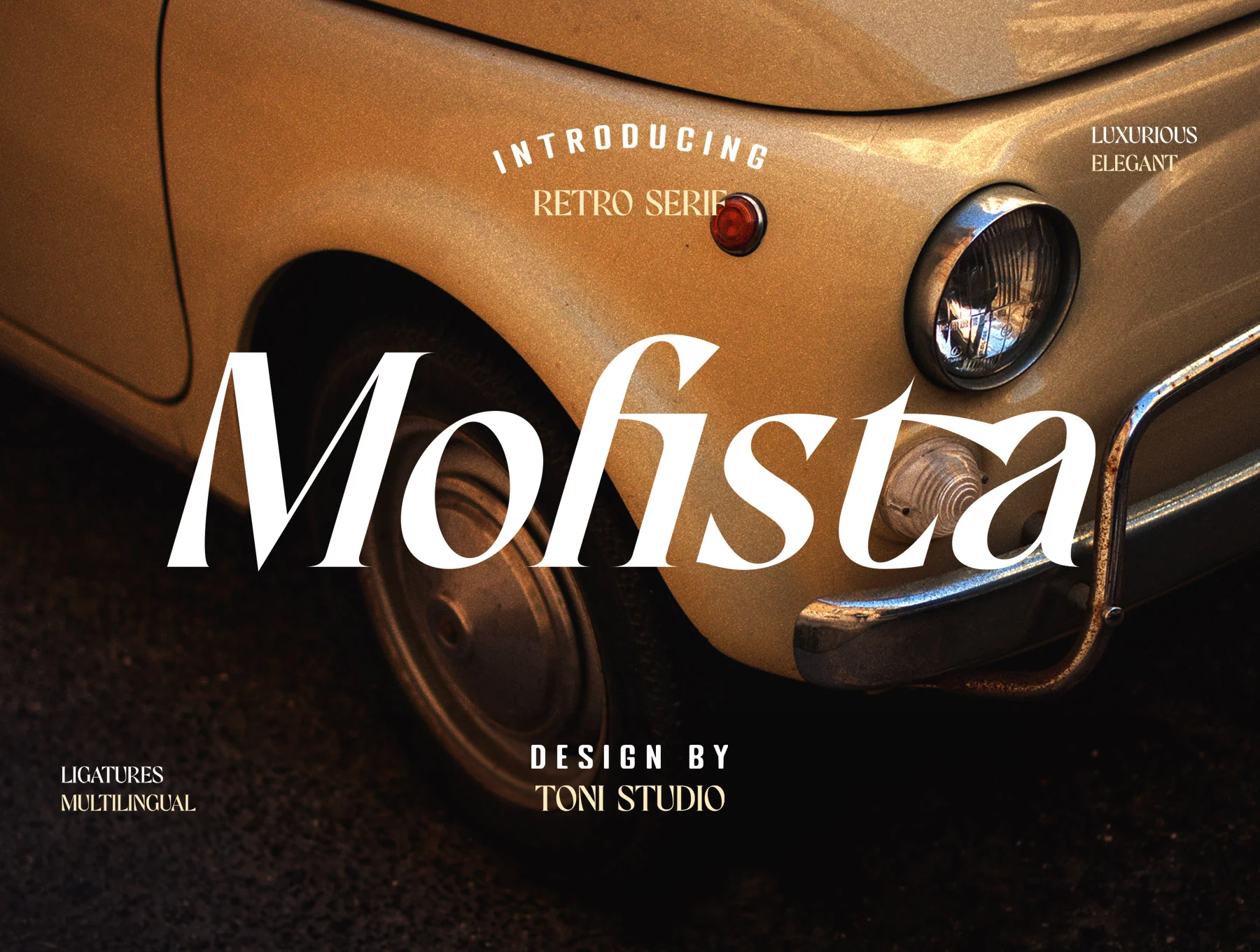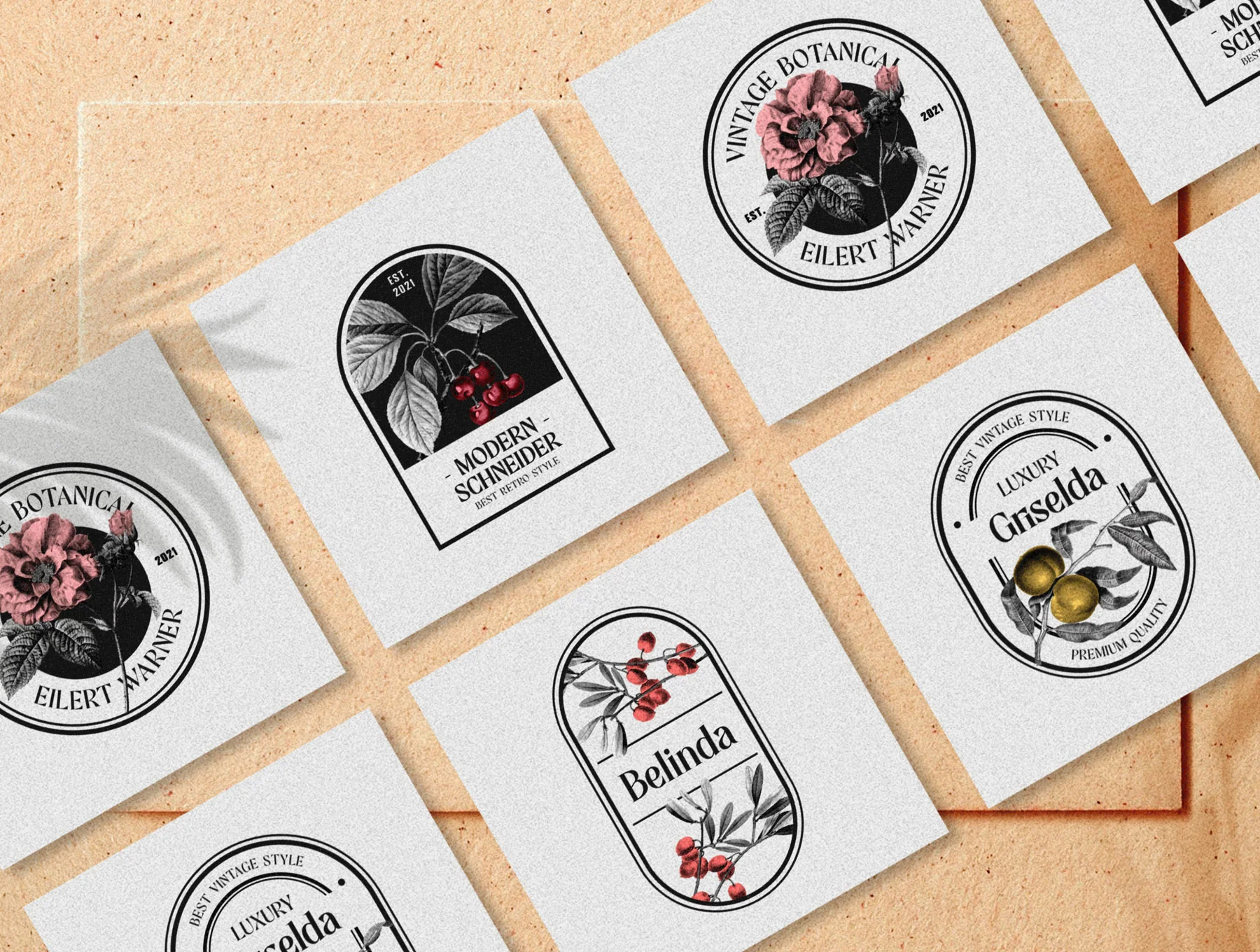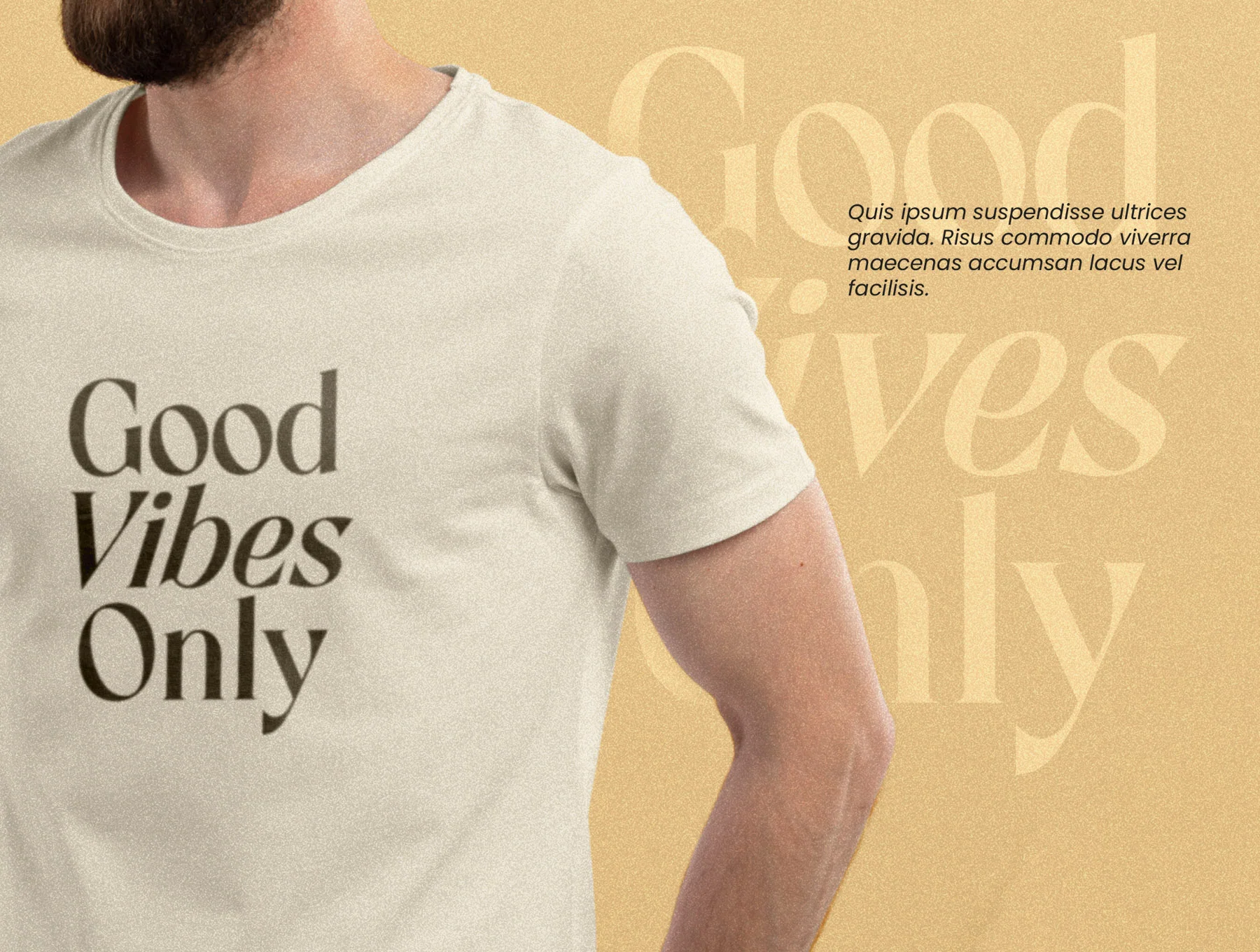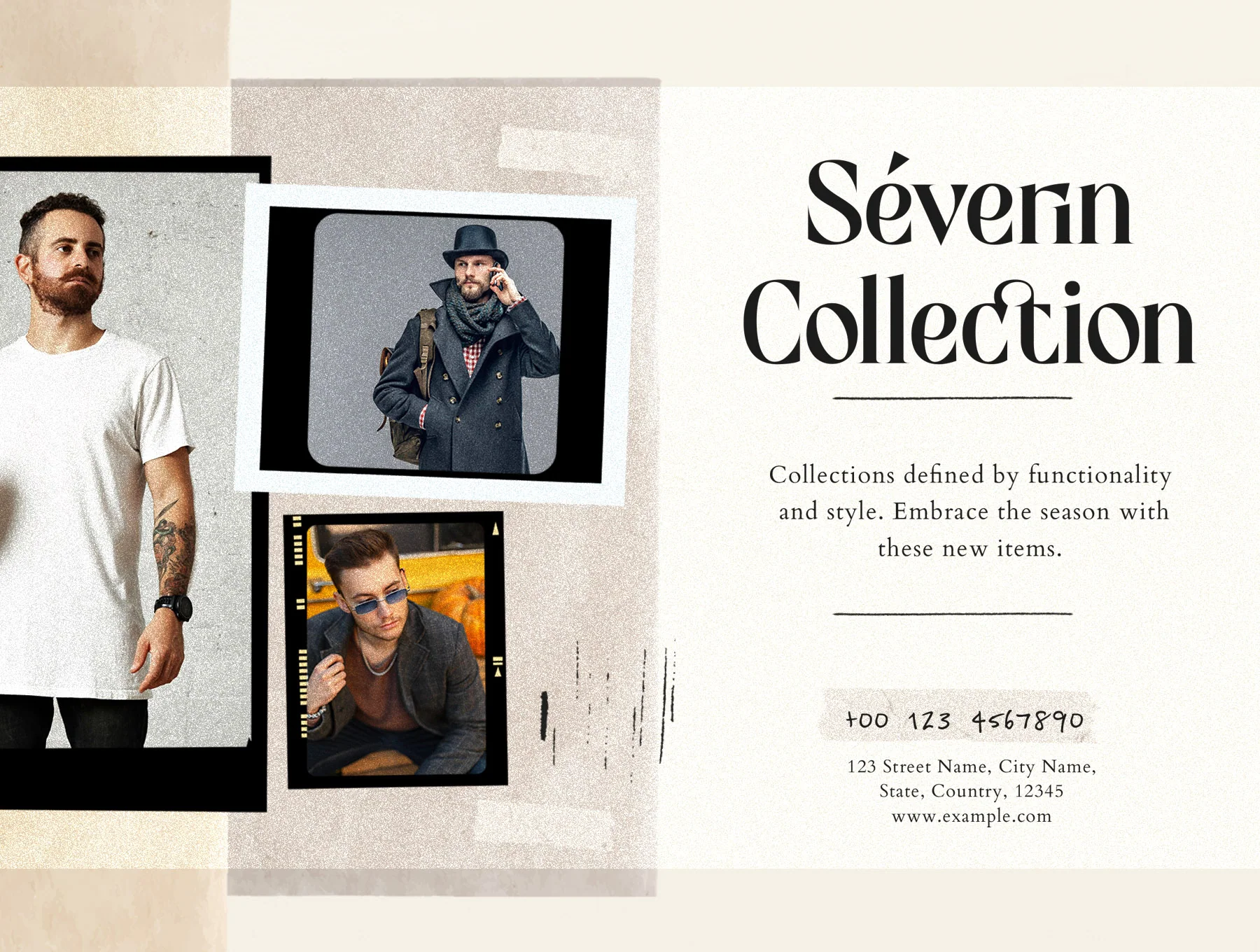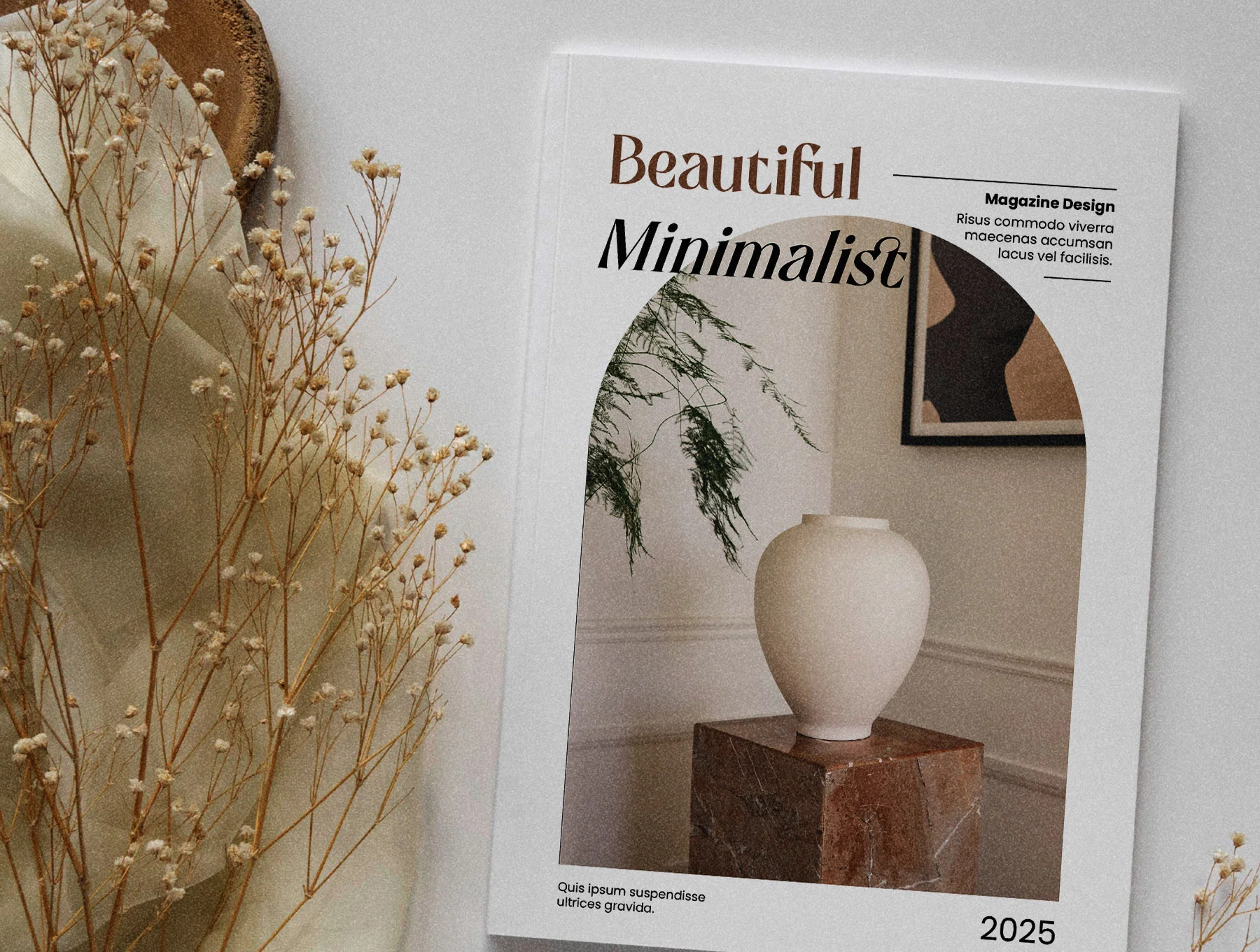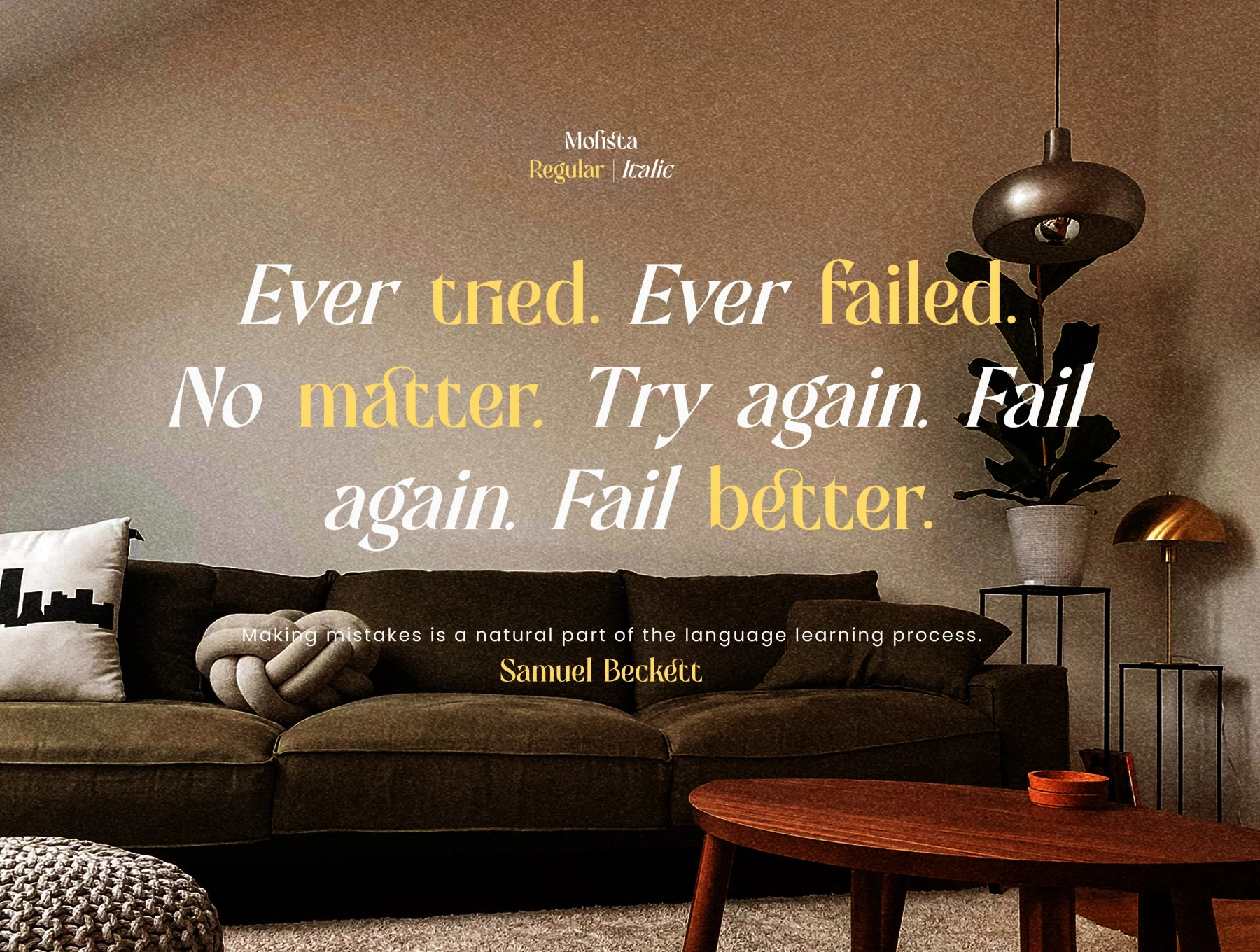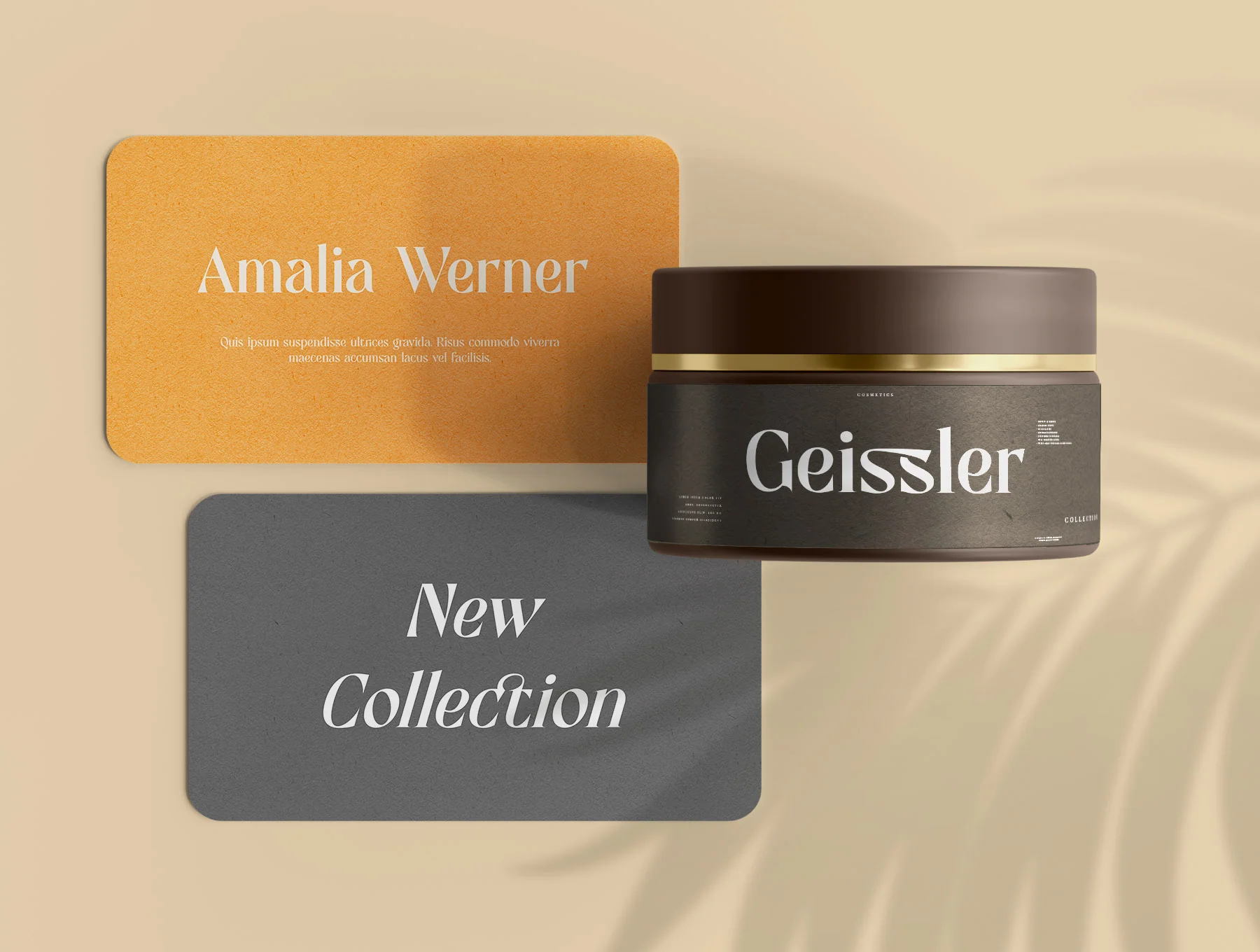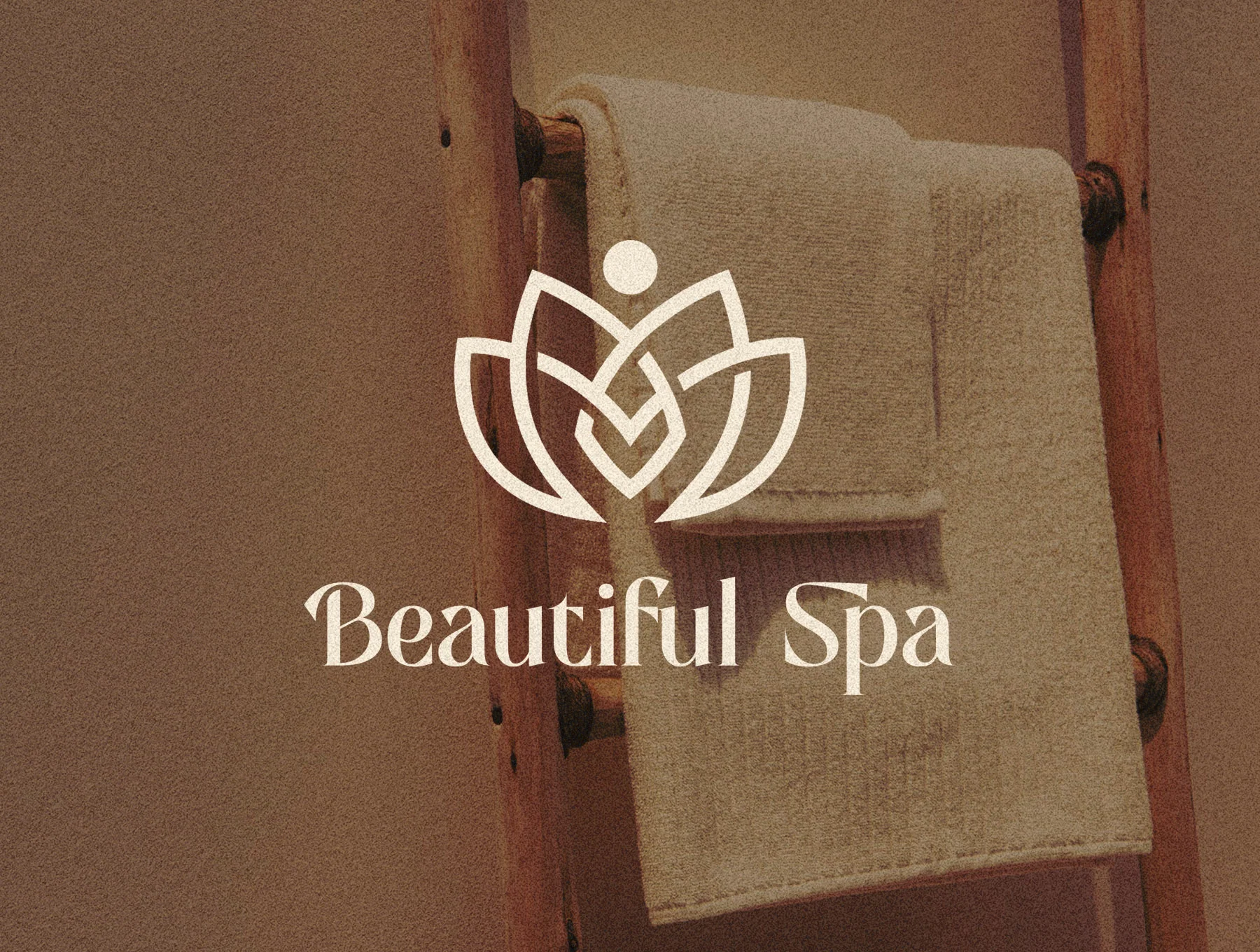
Mofista-Modern Serif Typeface
Contemporary Serif Font
standard style
slanted style
joined glyphs
Meet Mofista, a fresh retro serif inspired by expressive old-style typography. With regular and italic styles, alternates, warm rounded serifs, uppercase/lowercase, numbers, punctuation, and multilingual support, it suits logos, branding, posters, invites, books, ads, websites, magazines, fashion, and photography. Includes TTF, OTF, and WOFF files.